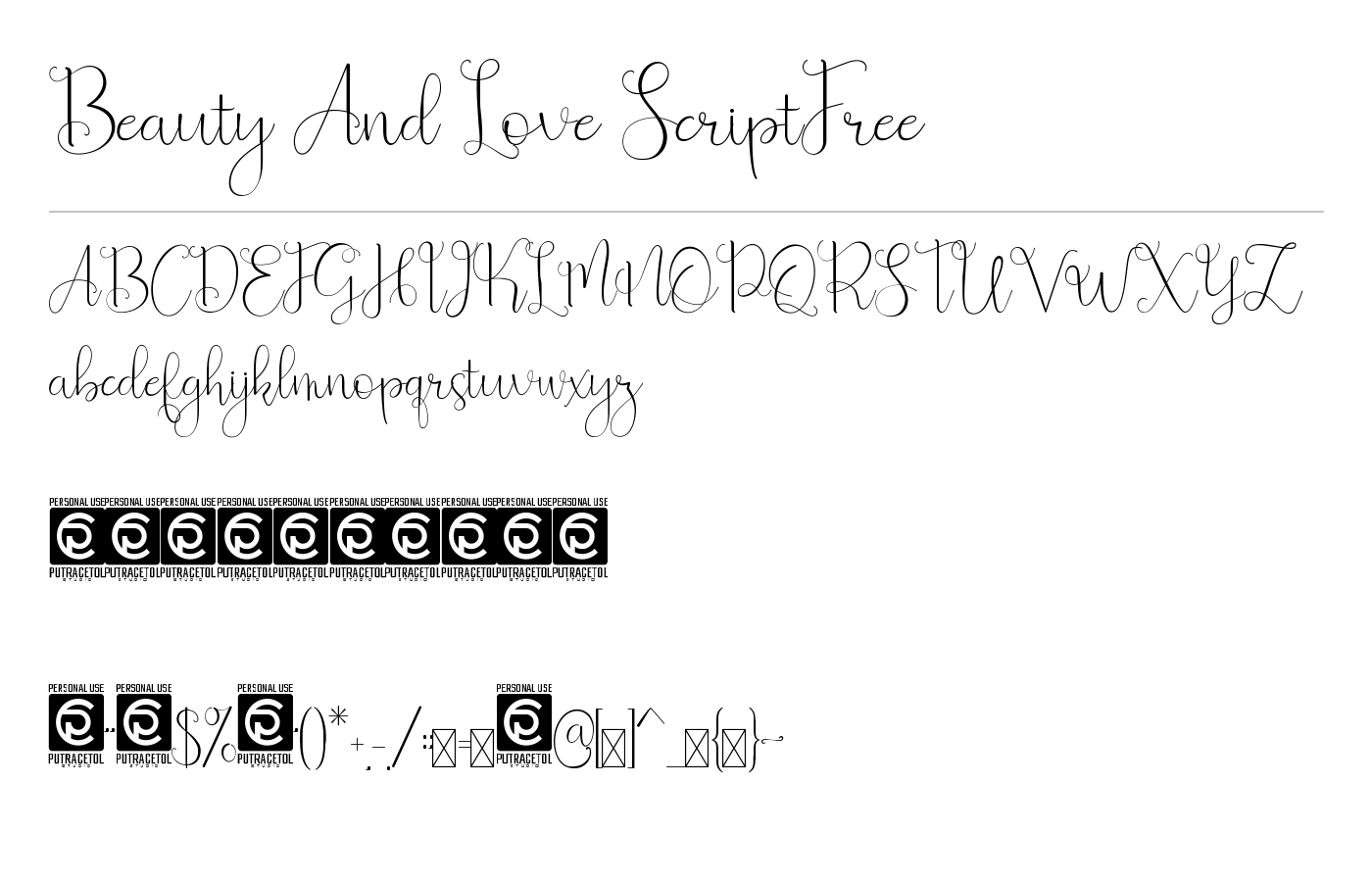
Beauty And Love is a delicate, elegant script font with thin strokes and graceful swirling flourishes that create a romantic and whimsical feel. Its tall, airy letterforms work beautifully for invitations, branding, and decorative headlines where a feminine, sophisticated touch is desired. This font shines in designs that want to evoke charm, elegance, and a sense of handcrafted artistry.
Beauty And Love Font
About Beauty And Love Font
| Font family | Beauty And Love Font |